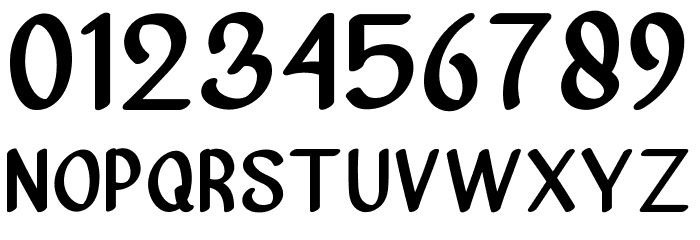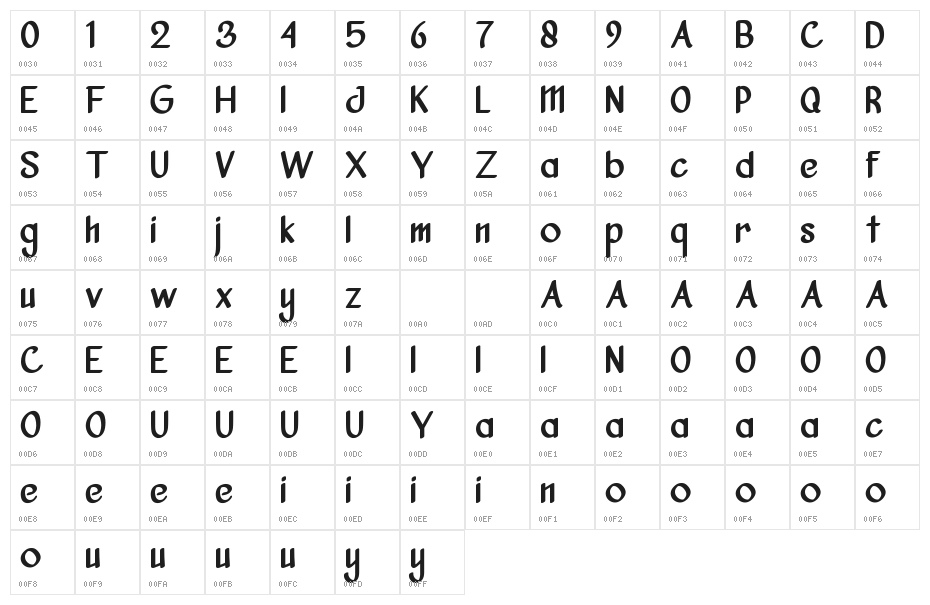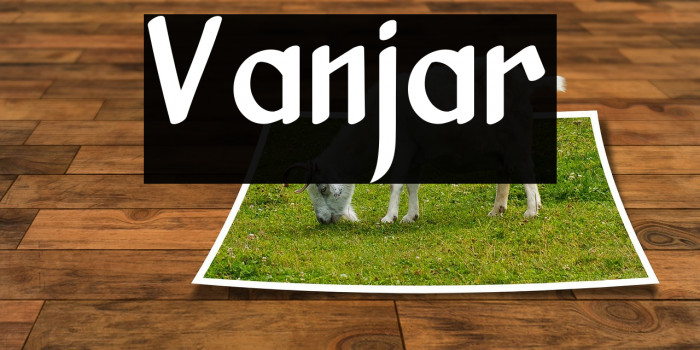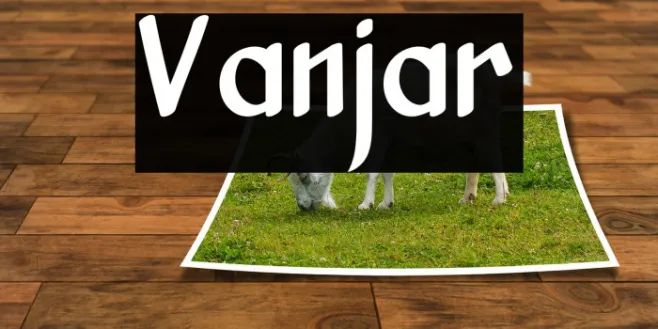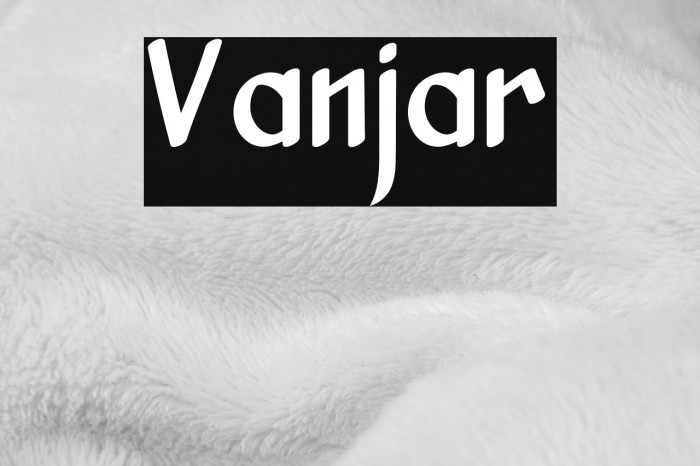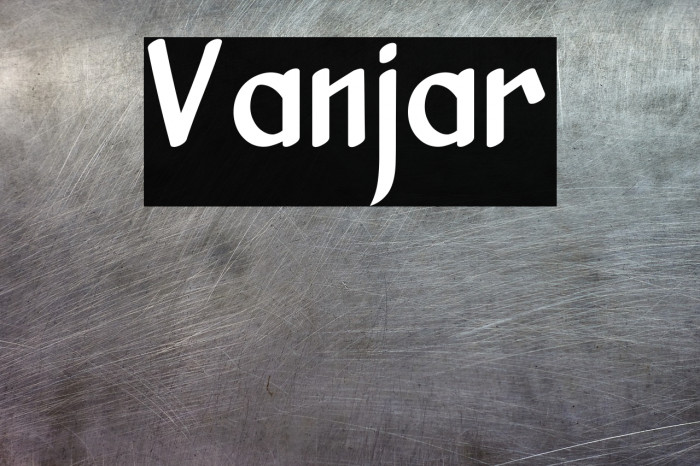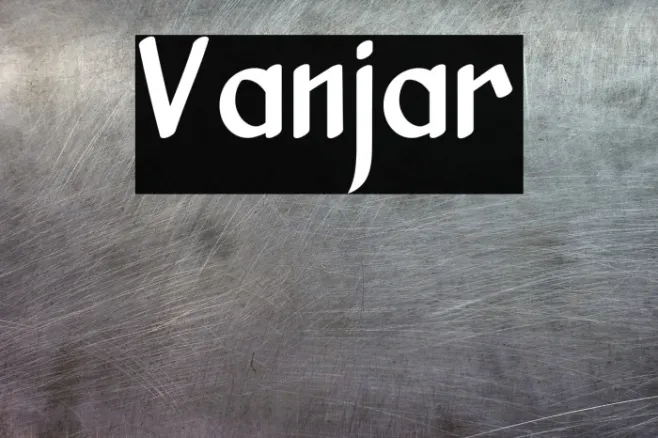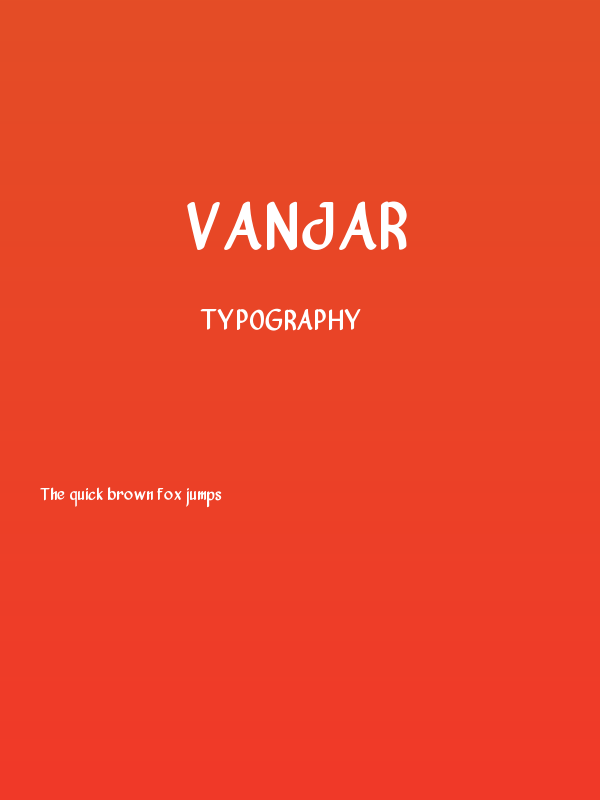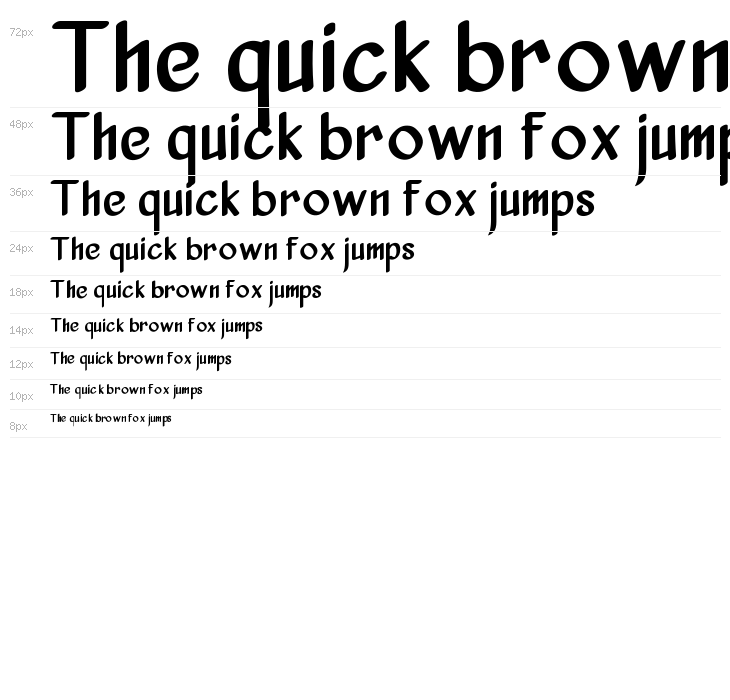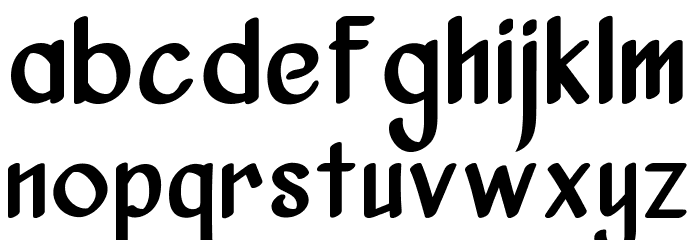
Vanjar Font
Vanjar Description
This font features a playful and whimsical design with rounded edges and a hand-drawn feel. The characters exhibit a consistent stroke width, giving it a uniform appearance. The uppercase letters are bold and slightly condensed, while the lowercase letters maintain a friendly and approachable style. The numbers are distinct and easy to read, complementing the overall aesthetic. Special characters are creatively integrated, adding to the font's charm. This font is suitable for projects that require a fun and informal touch, making it ideal for children's books, playful branding, or creative invitations.
| Proposed Projects | Children's books, playful branding, creative invitations, casual posters. |